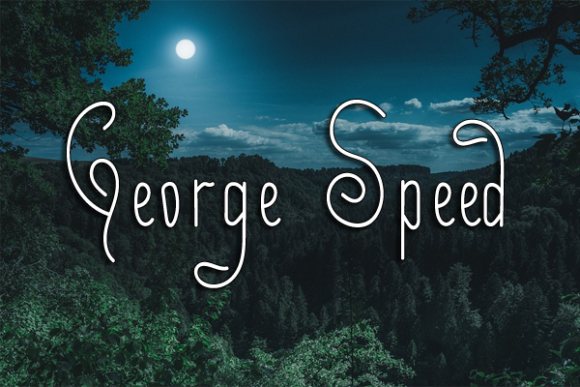
About George Speed Font
George Speed is a dainty and flowing handwritten font.
Sweet and joyful, this font will be ideal for writing wedding invitations, cards or any other design that may need a romantic, personalized touch!